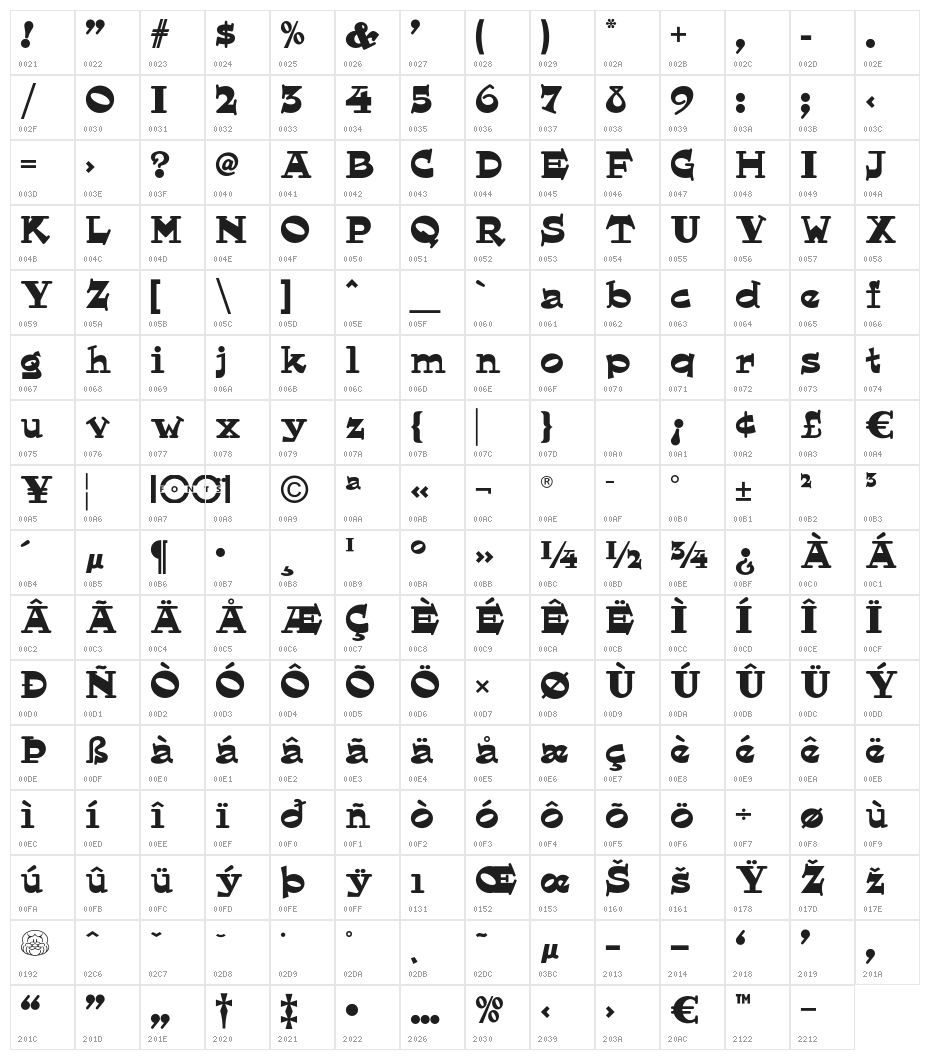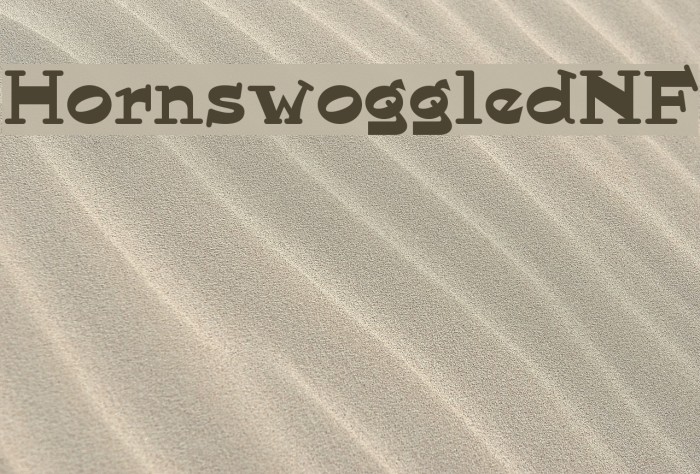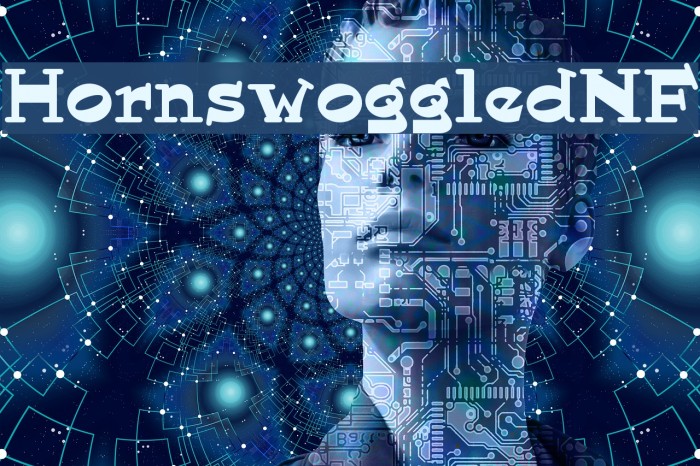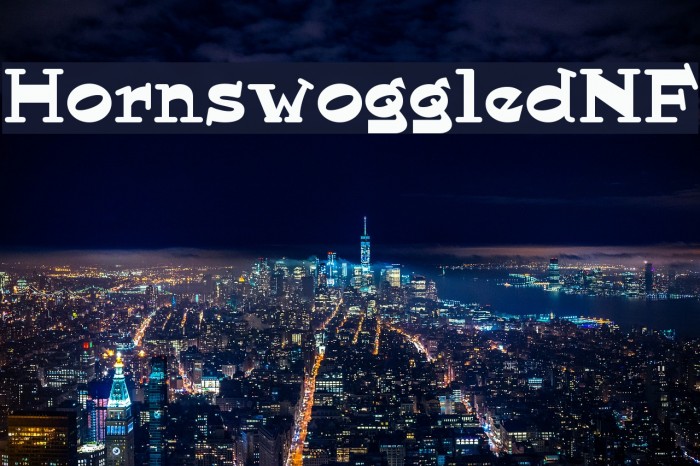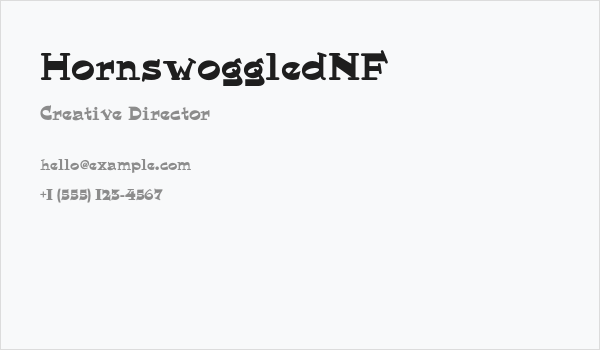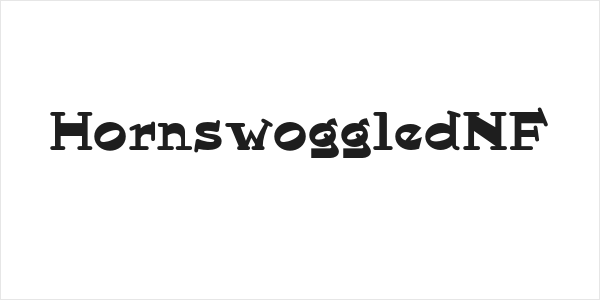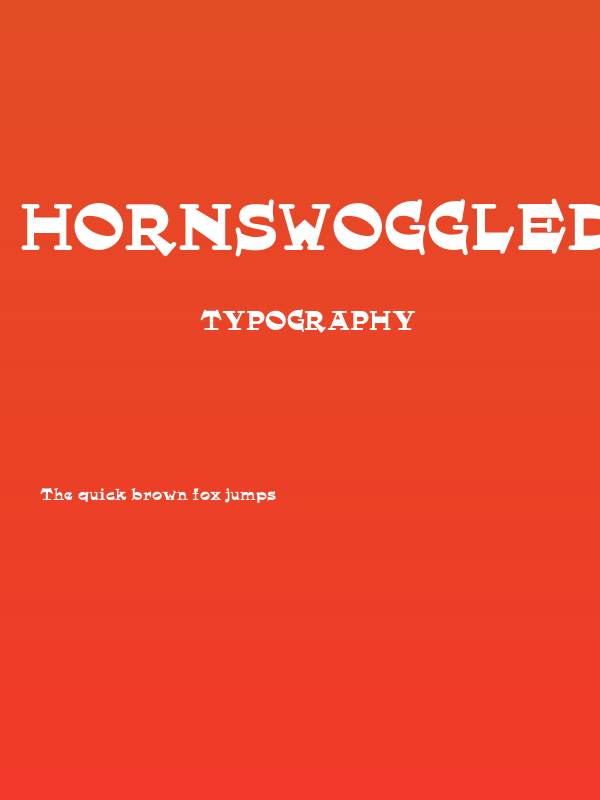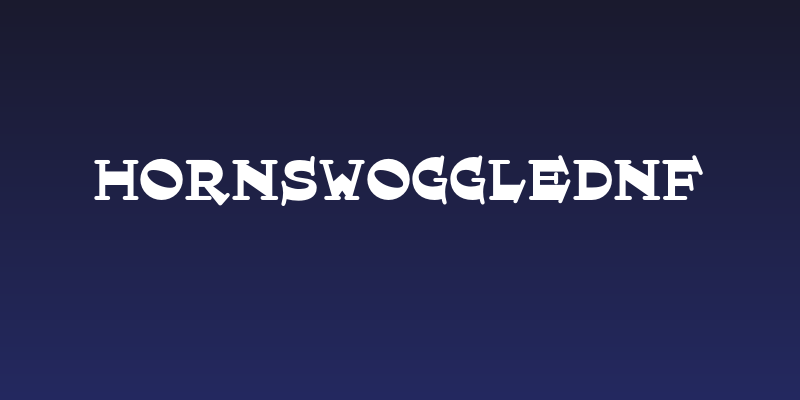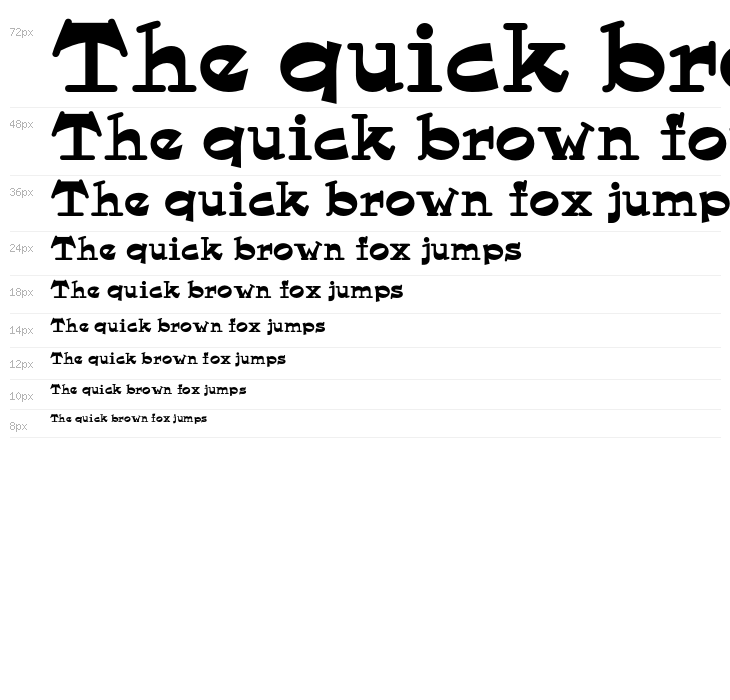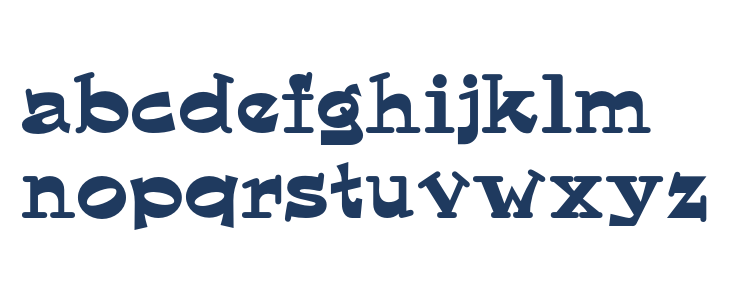
HornswoggledNF Font
HornswoggledNF Description
This font features a playful and quirky design with exaggerated serifs and unique character shapes. The uppercase letters are bold and dynamic, with a slight tilt that adds a sense of movement. The lowercase letters maintain the same whimsical style, offering a cohesive look across different text cases. Numbers are bold and prominent, ensuring readability while maintaining the font's distinctive style. Special characters are creatively designed, adding to the overall playful aesthetic. This font is ideal for projects that require a fun and engaging visual appeal.
| Proposed Projects | Ideal for children's books, playful branding, posters, and creative invitations. |